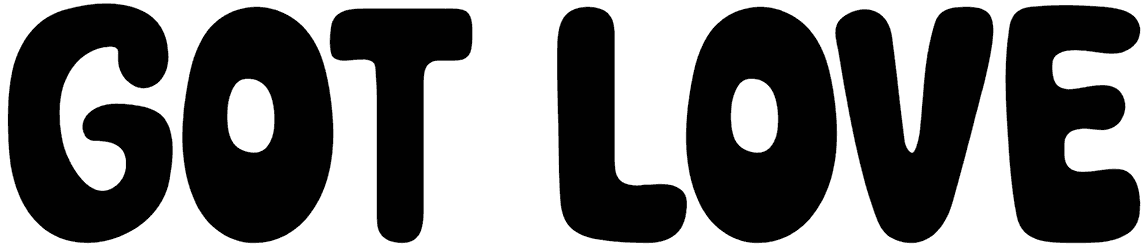
Got Love Font
Has it ever been a tall order to include some hints of friendliness in your communication with the readers? Well, it shouldn’t have, and it can only be fixed with a cartoon font, one of which we’re just about to share here with you called Got Love.
You won’t find any lowercase letters in this love font, nor any numerals, but it’s the childish theme that counts the most for designing your summer posters, storybook titles, puzzle game logos, and more.